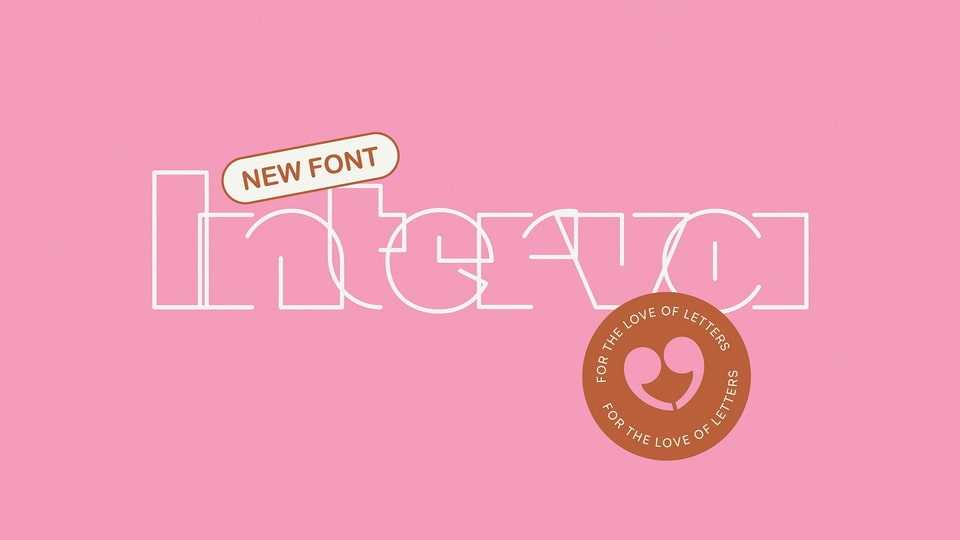
Download Interva font, a display typeface inspired by the concept of intervals — the intentional gaps and spaces between elements. The name reflects its unique structure: strokes that intersect but don’t always connect,
Designer: Philly Design